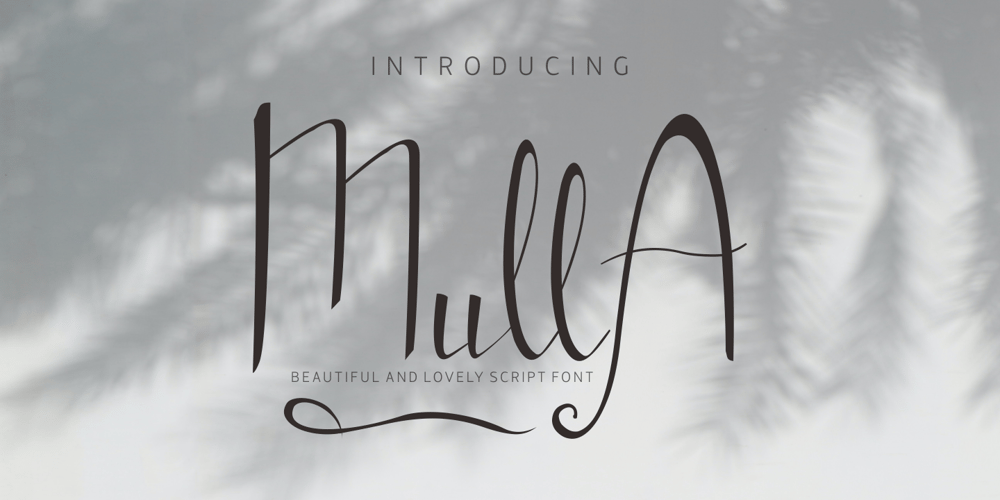
Mulla
Mulla font
Mulla Font Family was designed by Yulius Paryadi and published by YuliusParyadi. Mulla contains 1 styles and family package options. Mulla (Handwritten/Script) is a strong font that exudes beauty. Smooth and beautiful character but with amazing high artistic taste. This font is readable, catchy, and easy to use. This font is suitable for quotes, logo designs, magazines, business cards, and many other design projects. Mulla is includes:- full set uppercase and lowercase letter;- numerals;- multilingual support;- large number of punctuations;- ligatures, and swash. Please add this font as your favorite, hit like button, or follow me. I’ll very happy for that and appreciated it.